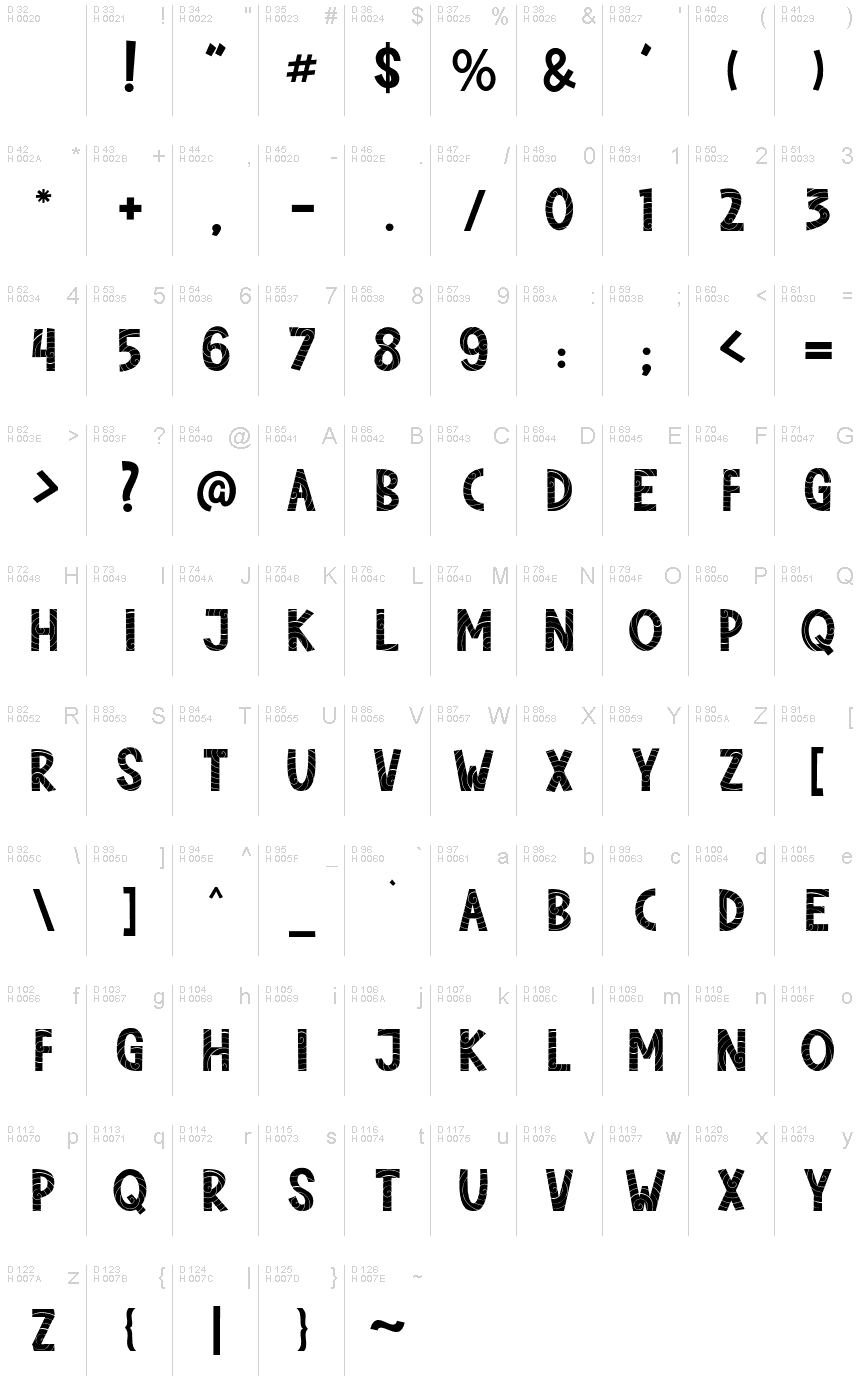
Varvara
Varvara, a mesmerizing display font designed by Kurnia Setyadi, captures attention with its decorative style. This font is perfect for a variety of creative projects. Its intricate curves and unique character make it ideal for fashion magazines, luxurious branding materials, and elegant wedding invitations. With its bold yet refined appearance, Varvara adds an artistic touch to logos and advertisements. Whether you're designing eye-catching posters or crafting visually stunning websites, this display font will make your projects stand out from the crowd. Elevate your designs with Varvara's captivating decorative elements and leave a lasting impression on your audience.